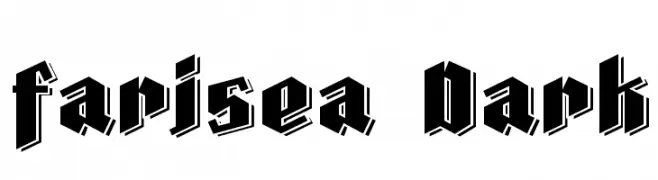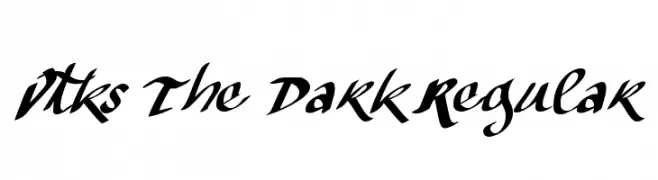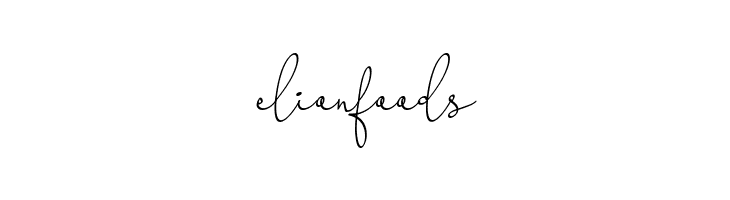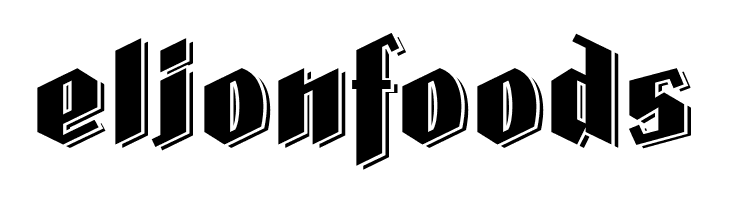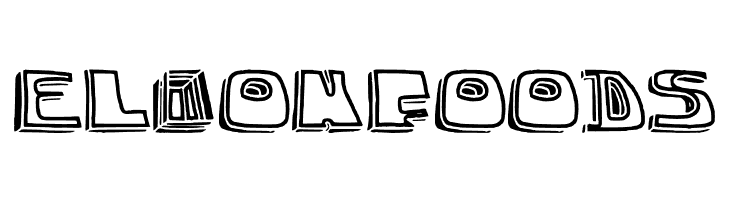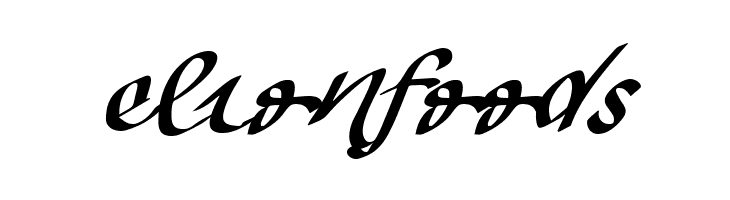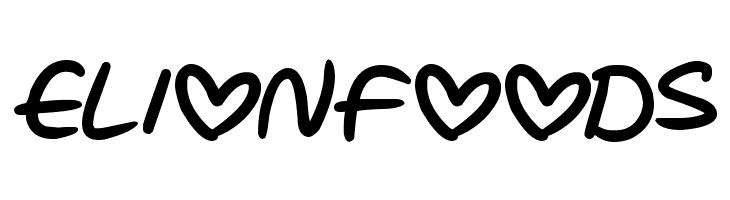
A bold, three-dimensional font with strong lines and a shadowed effect.
A bold, Art Deco-inspired font with high contrast and geometric elegance.
A graceful and elegant script font with flowing, cursive strokes.
A bold, angular font with a Gothic-inspired, three-dimensional design.
A dramatic Gothic script with sharp, angular lines and intricate detailing.
A classic serif font with elegant strokes and moderate contrast, offering a timeless and sophisticated look.
A playful, hand-drawn style font with bold, sketch-like outlines.
A bold, dramatic script font with sharp, angular strokes and a calligraphic flair.